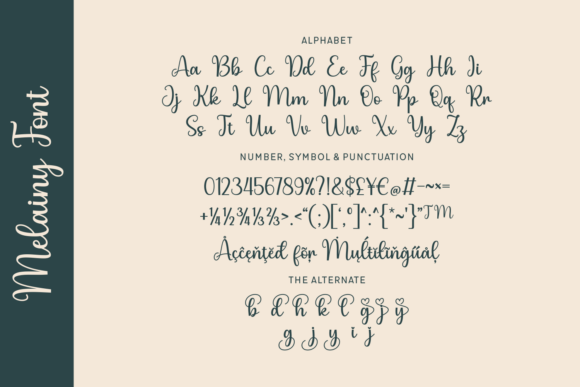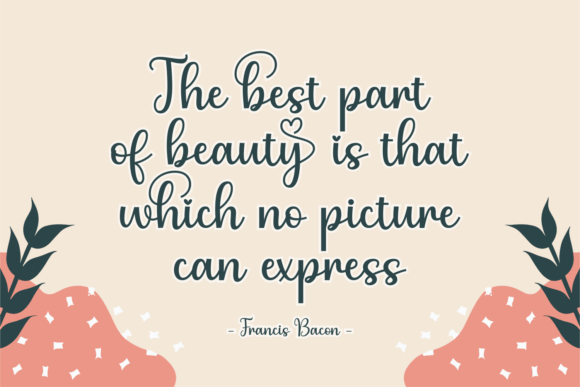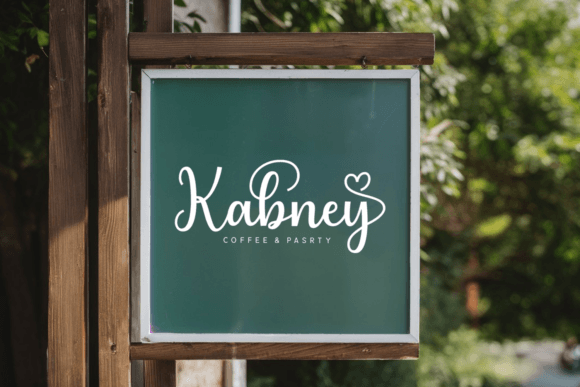
Introduction to Melainy Font
As designers, we’ve all been there – staring at a blank canvas, waiting for inspiration to strike. The cursor blinks, and our minds go blank. But what if I told you there’s a font that can spark creativity and bring your design to life? Enter Melainy Font, a playful and modern script font that’s sure to captivate your audience.
With its charming heart accents and flowing strokes, Melainy Font is the perfect design resource for any creative project. Whether you’re working on a romantic wedding design, a greeting card, or a branding project, this versatile font adds a touch of whimsy and elegance to your work. And the best part? You can download it for free, allowing you to experiment with different designs without breaking the bank.
For designers, Melainy Font is a valuable asset that can elevate your designs to the next level. Its high-quality design makes it perfect for projects that require a transparent background or a clean, minimalist look. With Melainy Font, you can create stunning designs that leave a lasting impression on your audience.
Key Features of Melainy Font
- High-quality design: Melainy Font is a premium font designed for creative projects, offering a unique and stylish look.
- Unique characteristics: The font features a unique blend of modern and elegant styles, making it an excellent choice for designers looking to add a touch of sophistication to their creative project.
Honest Review: Melainy Font
As a designer, I’m always on the lookout for high-quality fonts that can elevate my creative projects. Recently, I had the chance to try out the Melainy Font and I must say, it’s been a pleasant surprise.
What works well is its ability to seamlessly blend into any design, thanks to its transparent background feature. This makes it perfect for creating stunning visual effects in my designs.
The font itself is a beautiful script style, ideal for titles, headings, or even body text in certain contexts. I’ve used it in several projects and it always looks great.
However, I do have one ⚠️ limitation to mention: the font may not be suitable for large blocks of text, as the script style can be difficult to read in long passages.
Overall, I’m impressed with the Melainy Font and I would highly recommend it to any designer looking for a creative and versatile font.
Melainy Font is a versatile and high-quality design resource ideal for creative projects. With its transparent background, this font is perfect for adding a touch of elegance to your designs.
Melainy Font is ideal for creative projects such as wedding invitations, business cards, and social media graphics. Its transparent background makes it perfect for overlaying text on images or videos.